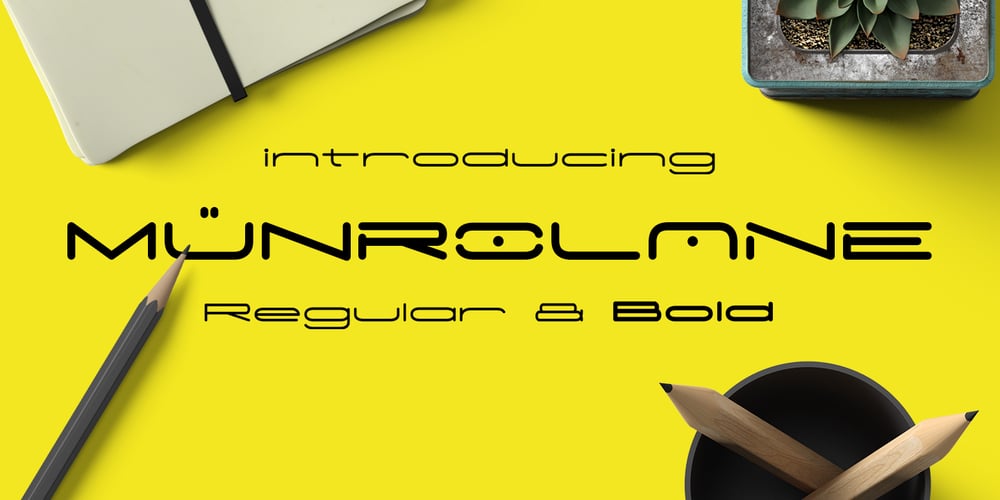
Munrolane Font Family was designed by Suandana ipandemade and published by madeDeduk. Munrolane contains 4 styles and family package options. Hello I’m really excited to introduce Munrolane. It is a minimal modern and clean font family. suitable to create any branding, product packaging, invitation, t-shirt, label, poster, logo etc. Whats Included? – Munrolane.otf – Munrolane Italic.otf – Munrolane bold.otf – Munrolane bold Italic.otf Features – UPPERCASE – lowercase – Number & Symbol – International Glyphs – Alternative UPPERCASE and lowercase If you need anything else just shoot me an email at: dedukvic@gmail.com